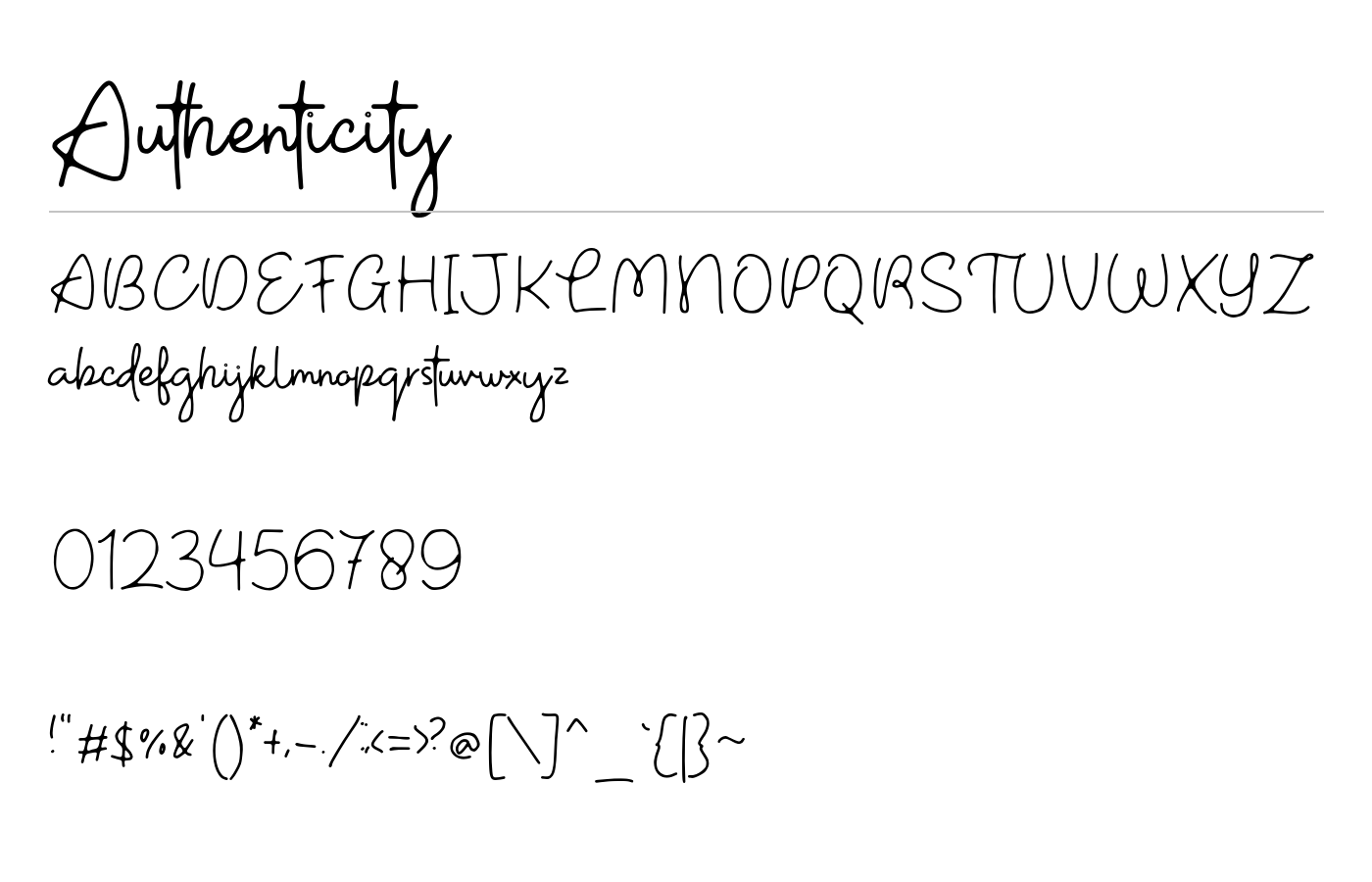
Authenticity Font is a charming, handwritten script that offers a playful and casual feel through its slender, slightly irregular strokes and tall, narrow letterforms. Its light weight and airy spacing make it ideal for projects that want to convey a personal, approachable vibe, such as invitations, branding for creative or lifestyle products, and social media graphics. This font’s unique, informal character brings warmth and originality without sacrificing legibility, making it perfect for headlines and expressive design elements.
Authenticity Font
About Authenticity Font